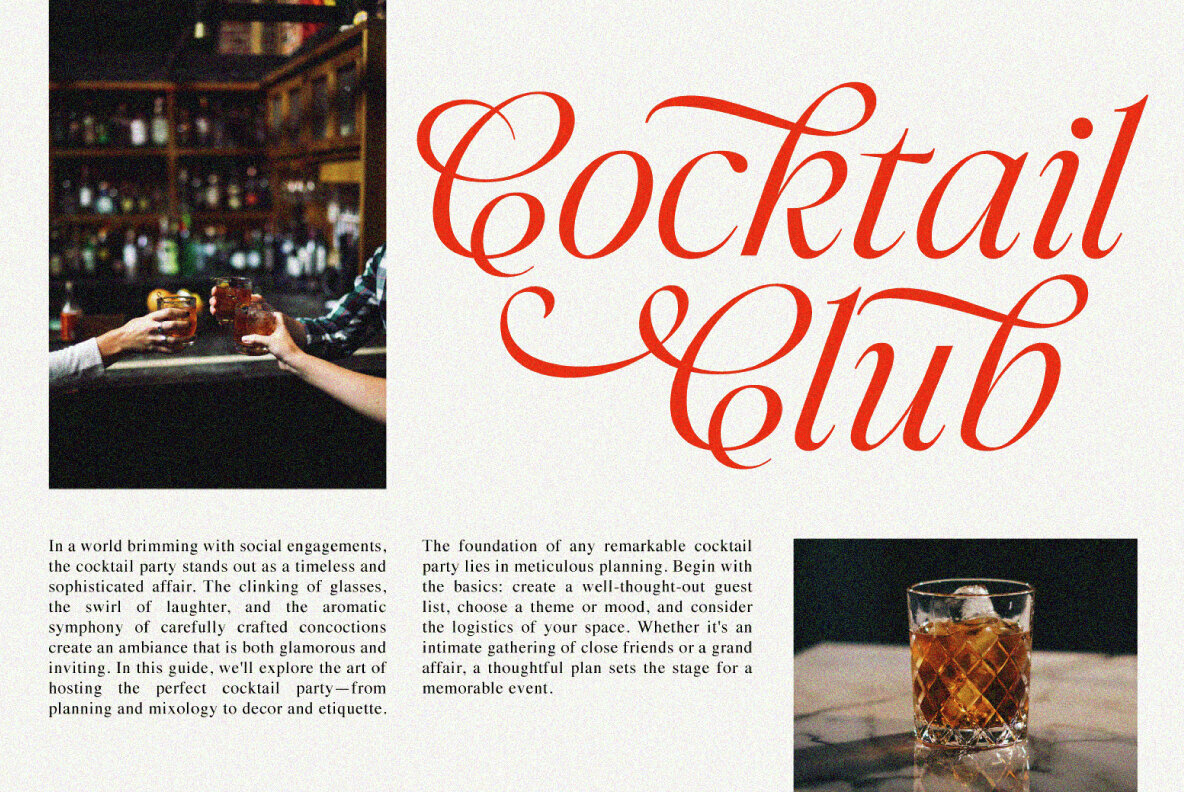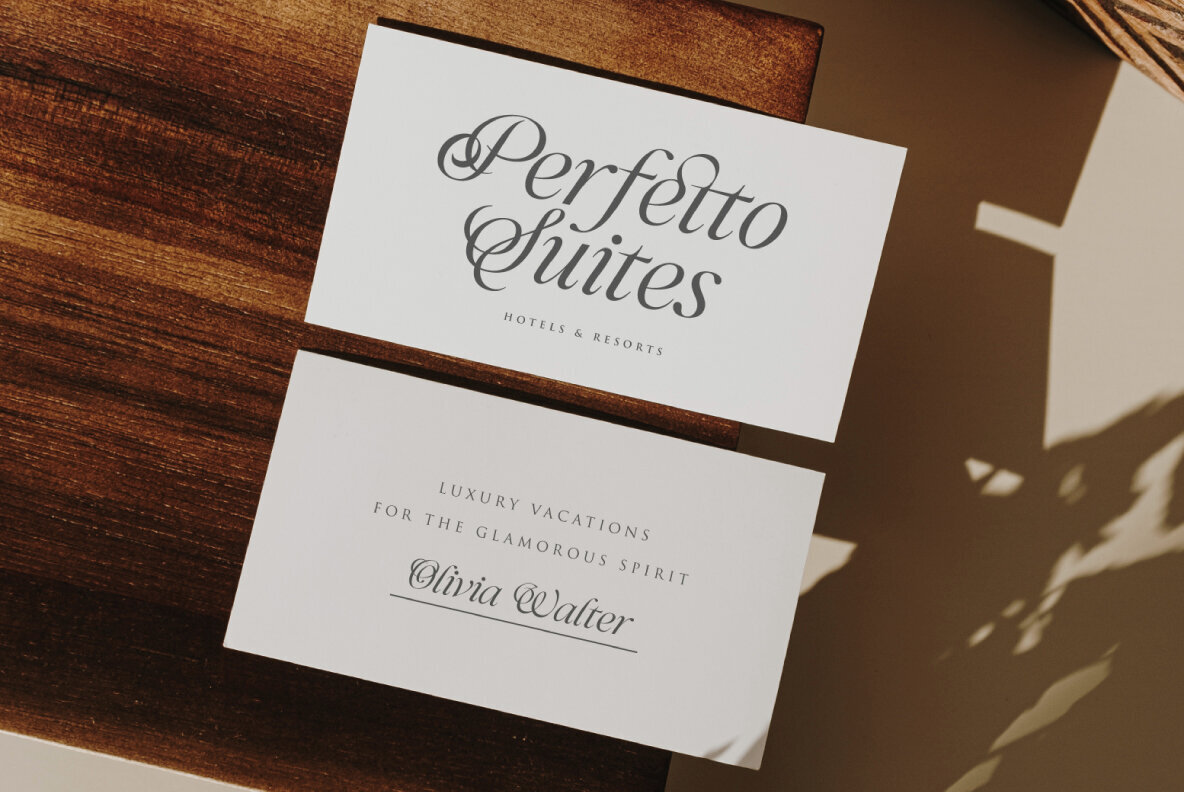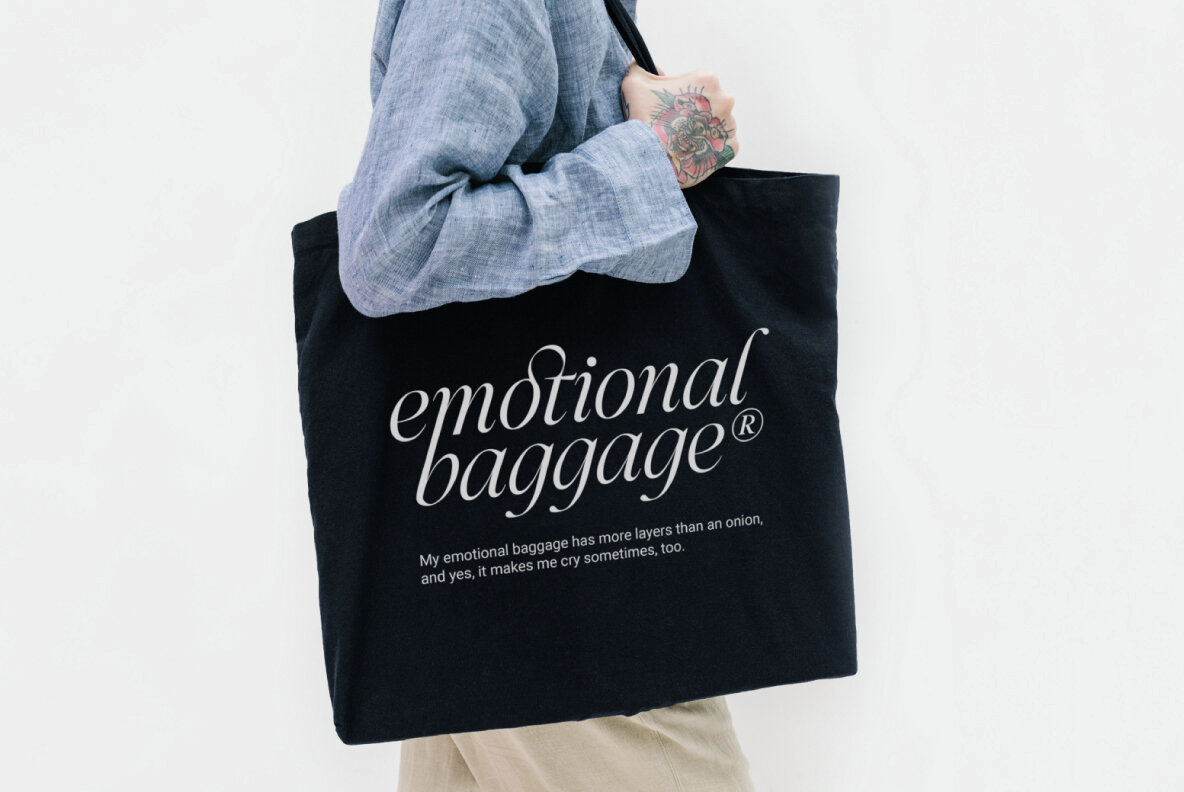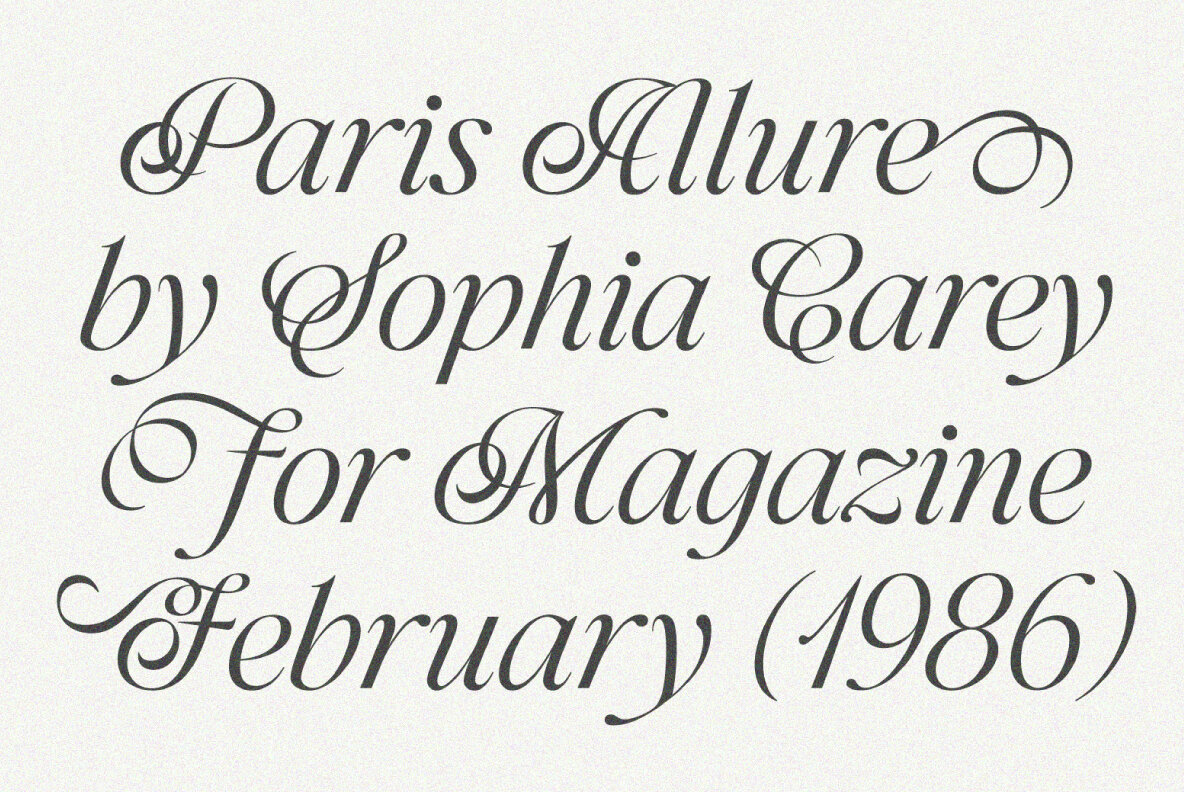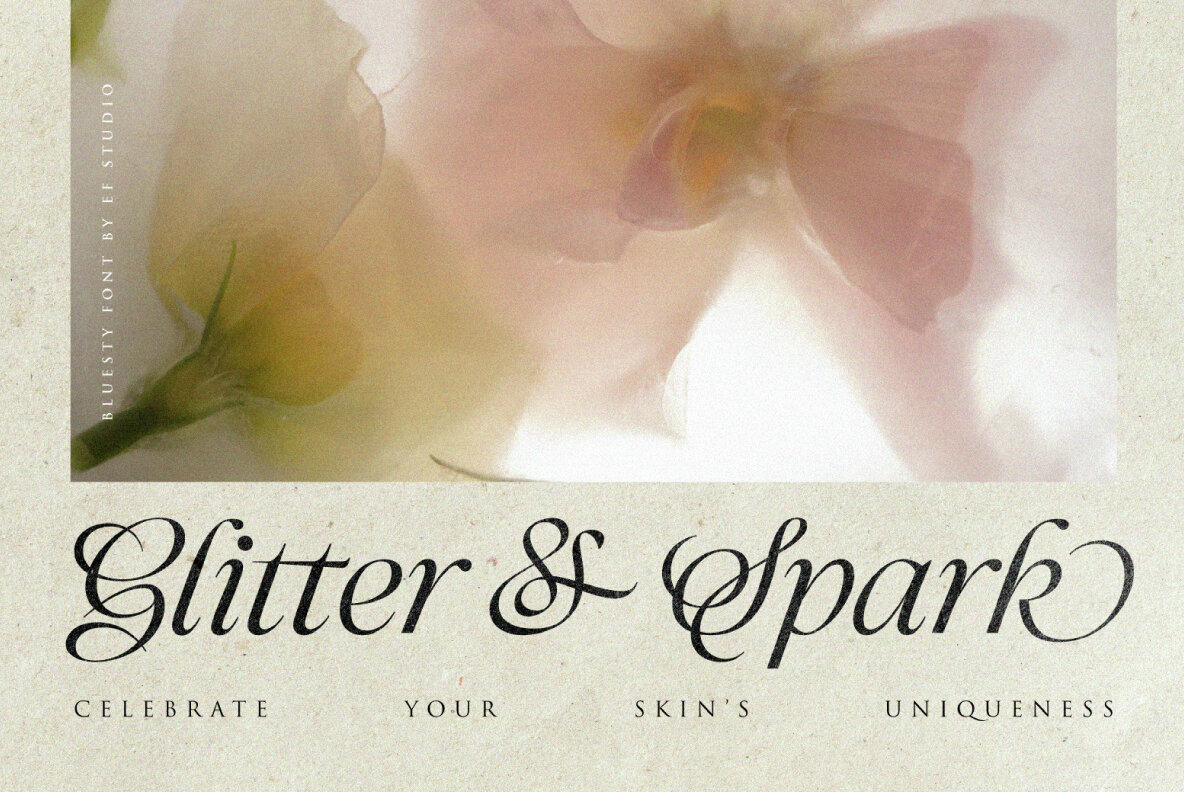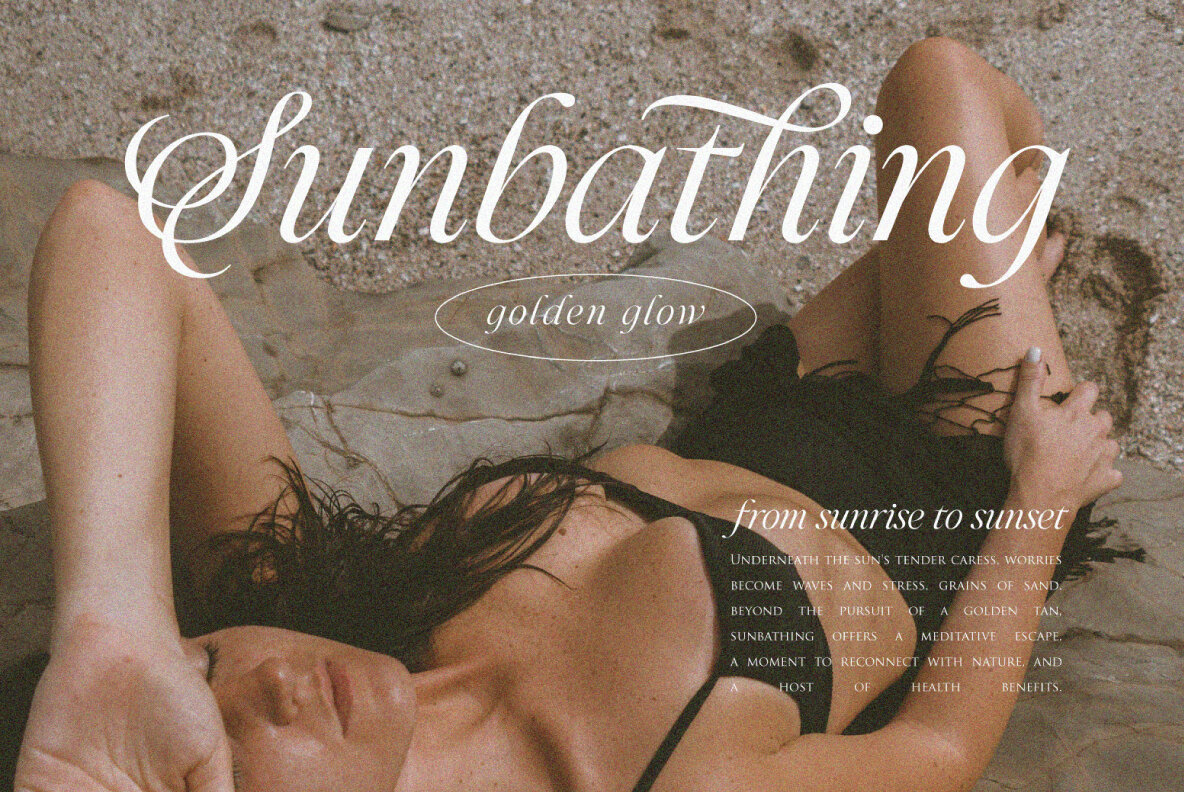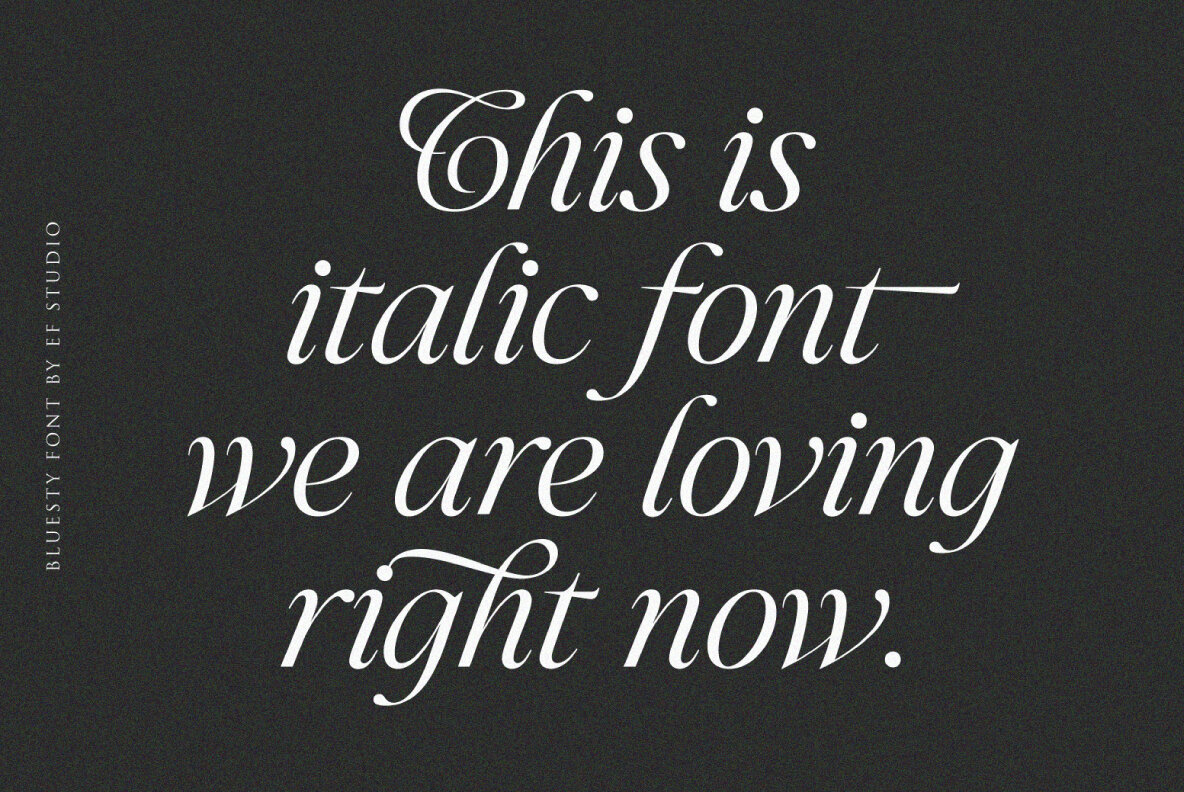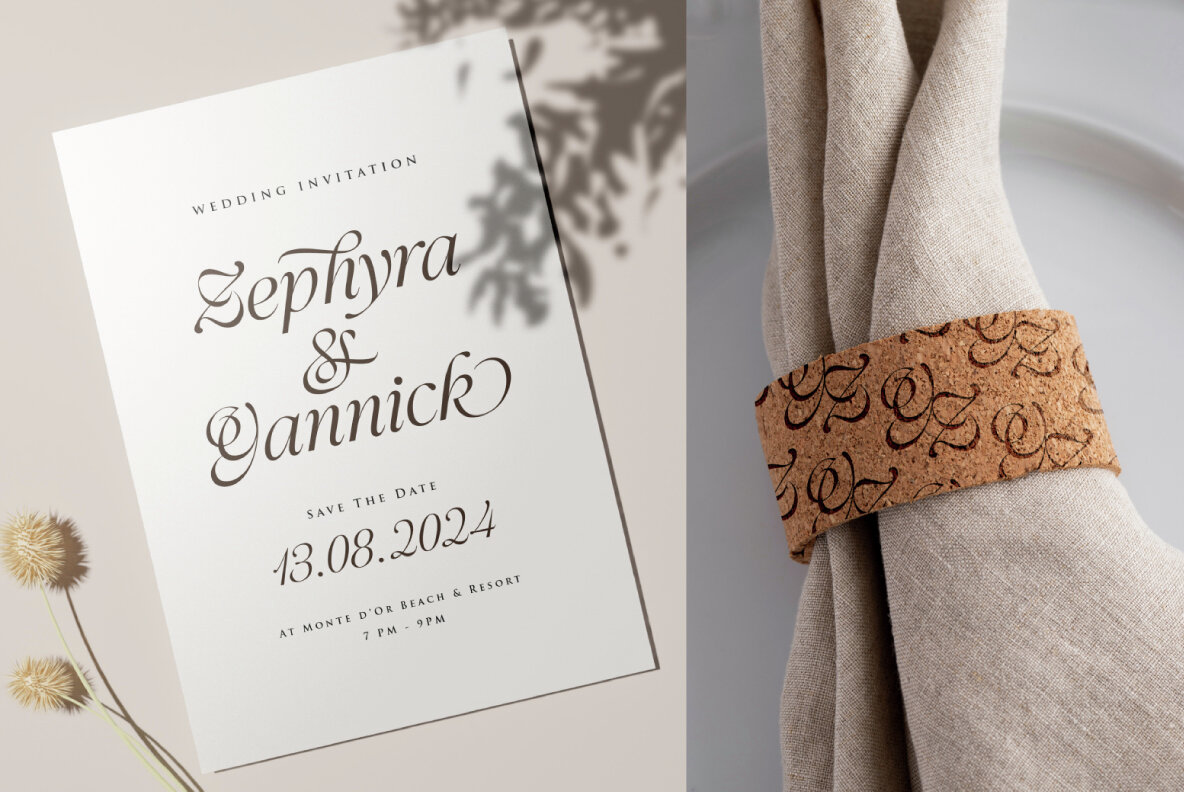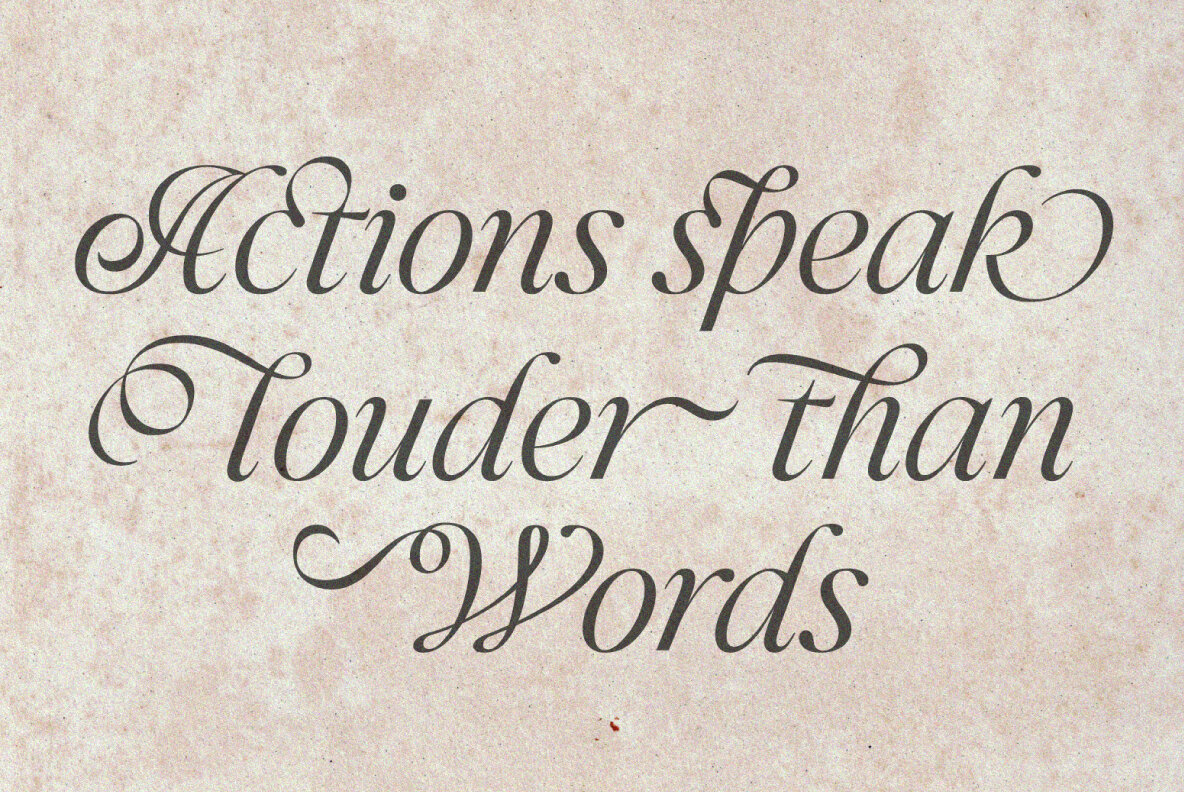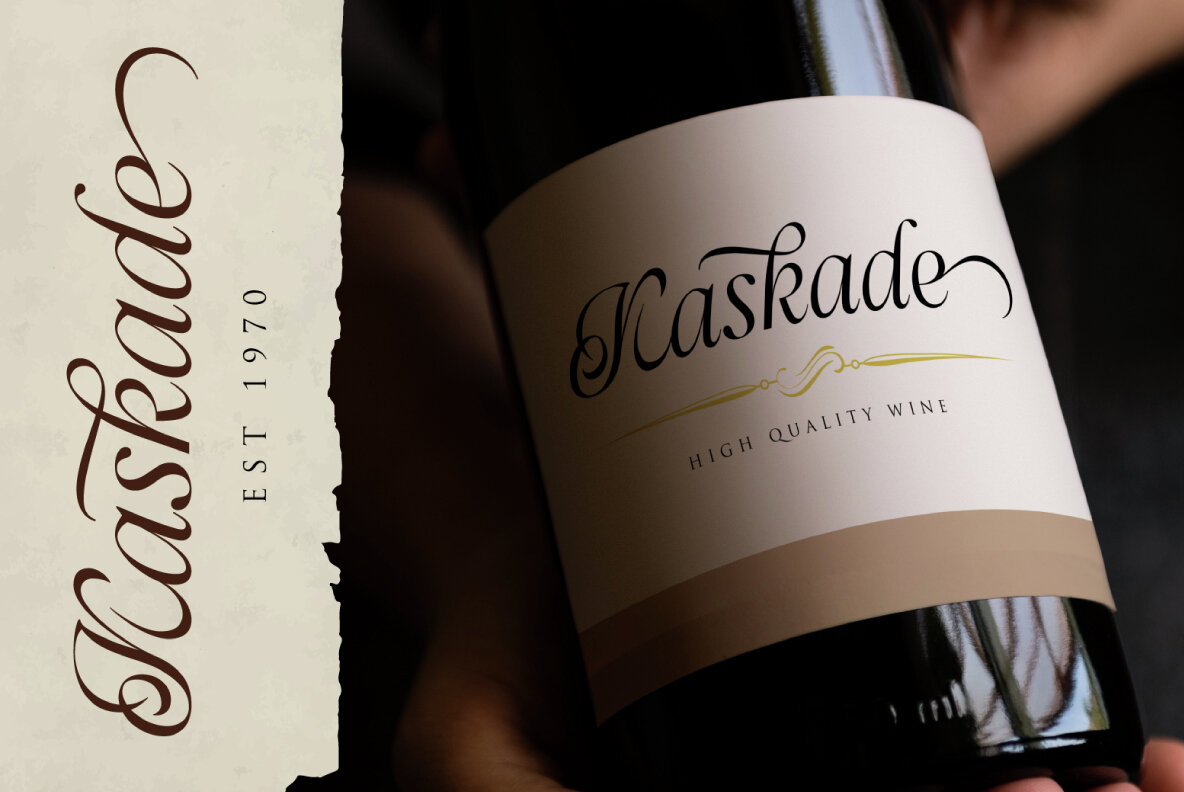
Bluesty Font
Bluesty Regular
Experience the elegance of Bluesty, a font that combines graceful curves with precise angles to refine your text. Perfect for invitations, logos, or any printed material, Bluesty infuses a touch of sophistication into your design, transforming every word into a work of art.Bluesty: A Sophisticated Blend of Curves and Angles